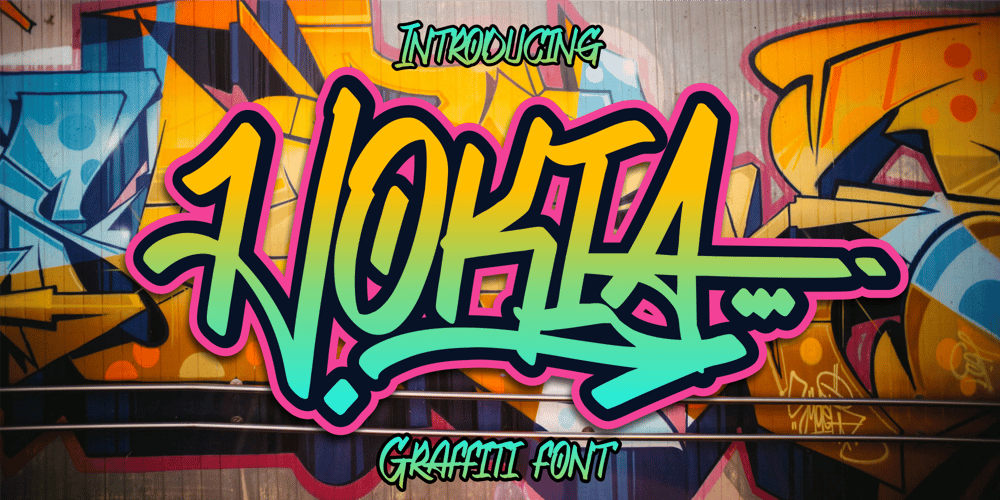
Hokia
Hokia font
Hokia Font Family was designed by Fachrizal Yusuf and published by Allouse Studio. Hokia contains 1 styles and family package options. Proudly Presenting, Hokia a Tagging Graffiti Font.Hokia is perfect for any titles, logo, product packaging, branding project, megazine, social media, wedding, or just used to express words above the background.Hokia also come with Multi-Lingual Support.Enjoy the font, feel free to comment or feedback, send me PM or email. Thank you!